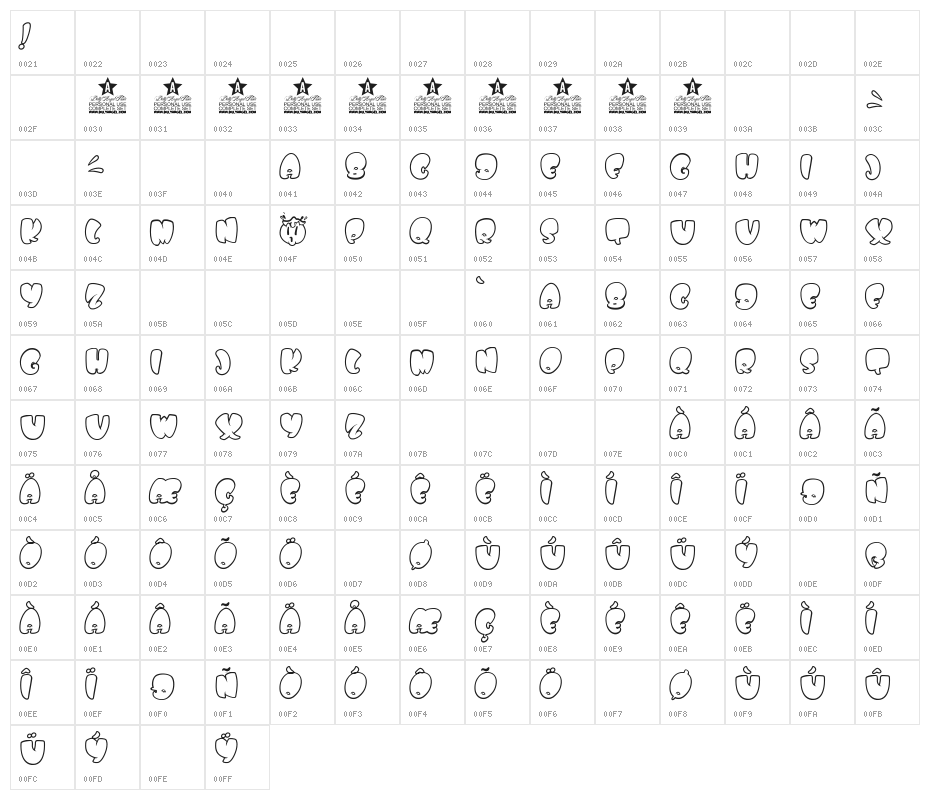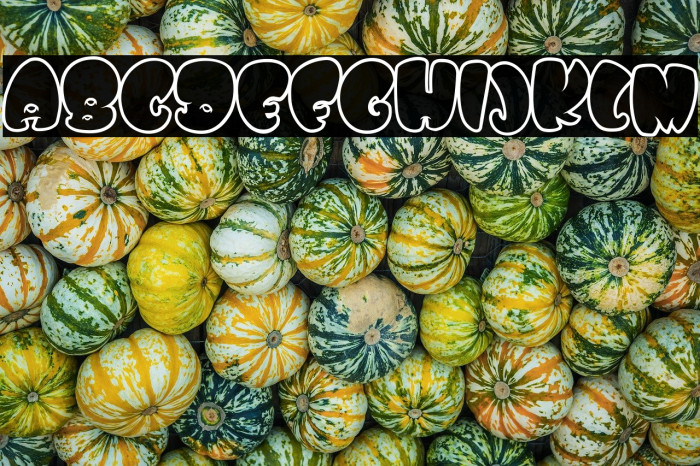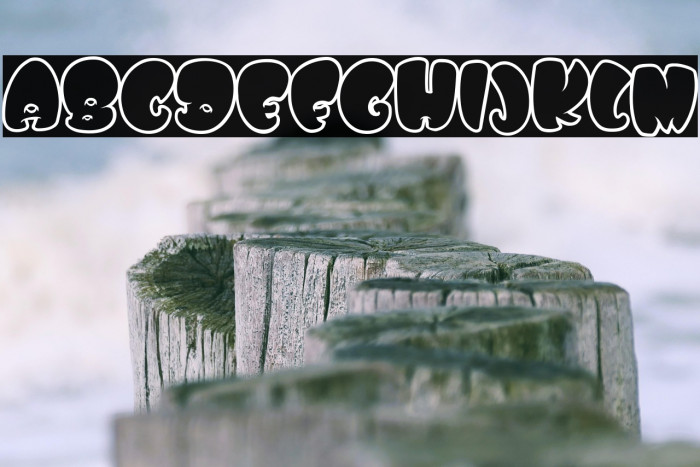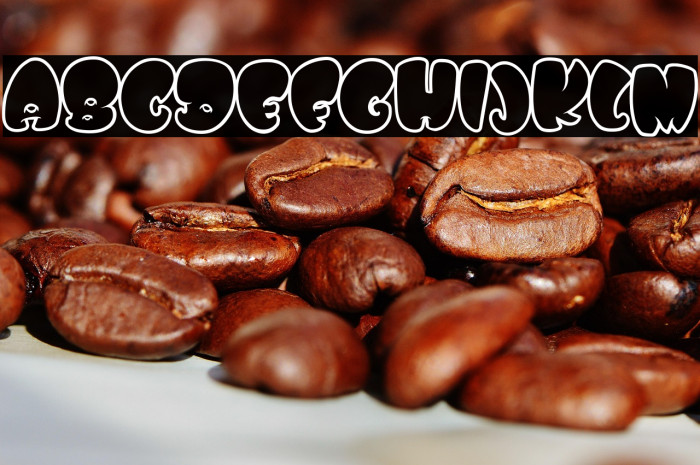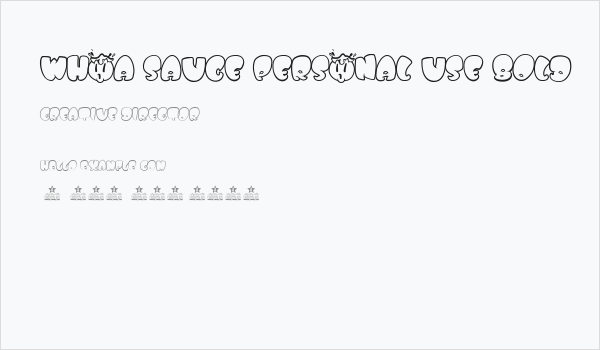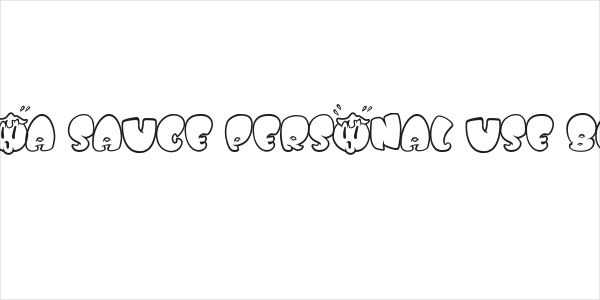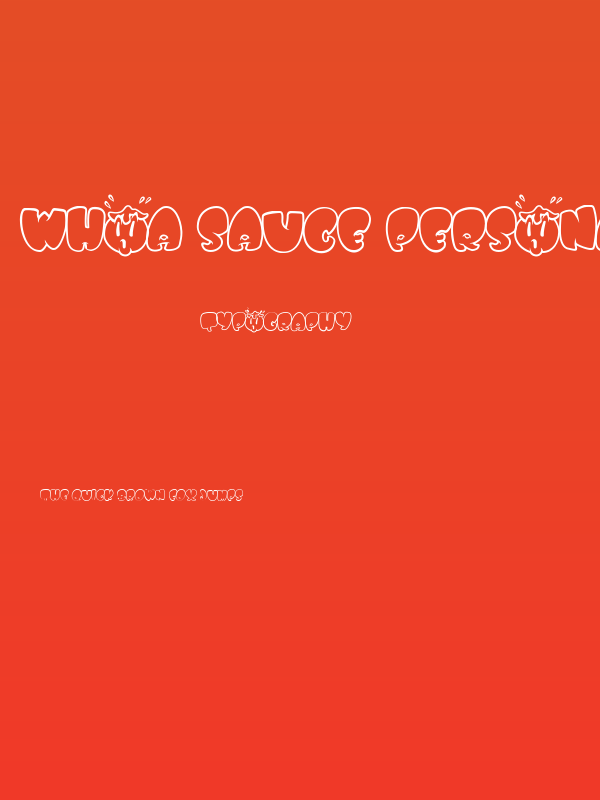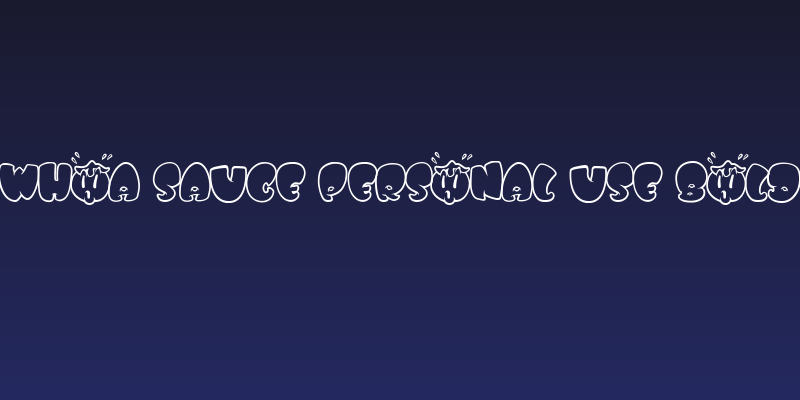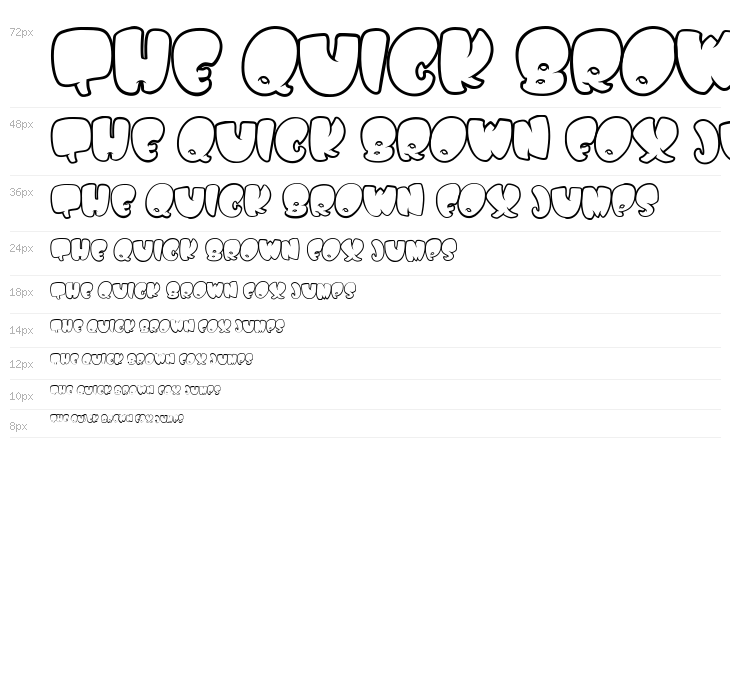
WHOA SAUCE PERSONAL USE Bold Font
WHOA SAUCE PERSONAL USE Bold Description
This playful and bold font features a bubbly, cartoonish style with exaggerated curves and rounded edges. Each letter appears to have a playful personality, with some characters incorporating whimsical elements like drips or splashes. The font is highly decorative, making it ideal for projects that require a fun and eye-catching design. Its thick strokes and rounded forms give it a friendly and approachable appearance, perfect for children's materials, playful branding, or creative projects that aim to stand out.
| Overall Style | Playful, Cartoonish, Fun |
| Use Case | Logos, Posters, Children's materials |